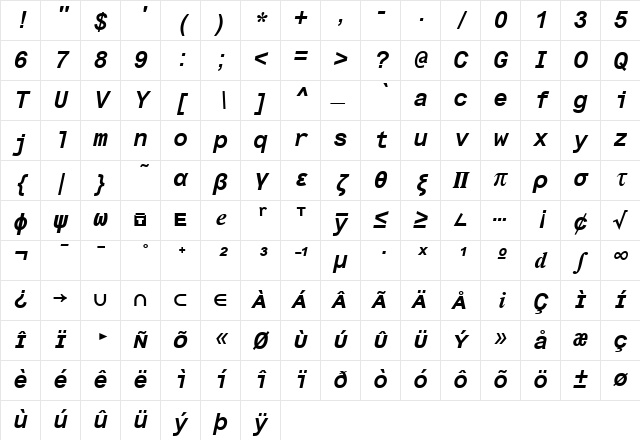
Complete TI Math Bold Oblique glyph index. Displaying only characters natively supported by TI Math Bold Oblique font.
TI Math is a composed and adaptable typeface that performs quietly and consistently across a wide range of design contexts. The slanted form adds forward momentum and visual energy. Its bold stroke weight gives it real presence on the page.
Pro Tip: Use TI Math for emphasis, pull quotes, and subheadings where its slanted energy can add rhythm to the layout.